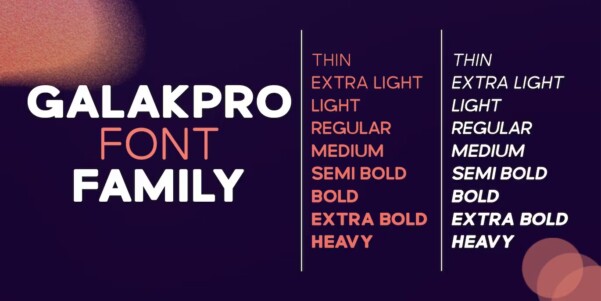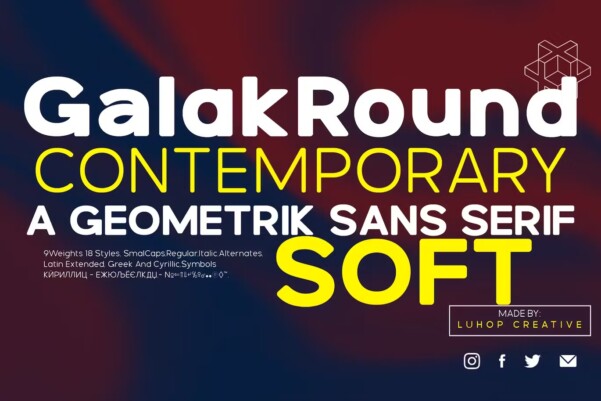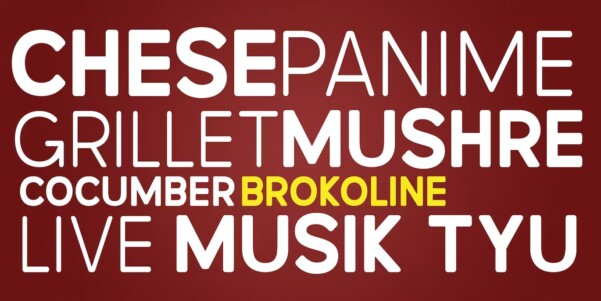
Galak Round Font
Galak Round Font is a modern geometric sans serif family characterized by its simplicity and extensive functionality.consisting of 9 weights ranging from Hairline to Heavy with matching italics. It supports Extended Latin, Cyrillic and Greek. This blend produces a typeface of modern, clean and contemporary appearance that has implicit on its core a classic vibe, nourishing the text with a timeless elegance. In use, the form and function balance of its design allow it freely travel through a diverse range of fields and possibilities like short text settings, brands, headlines or signage systems with grace and naturality.